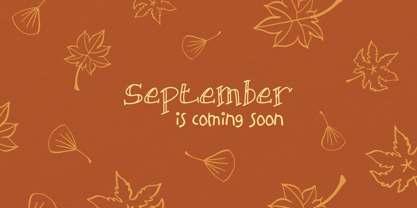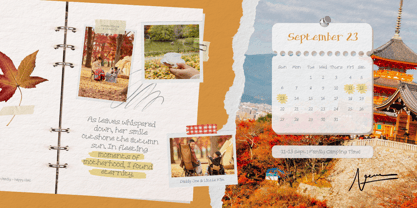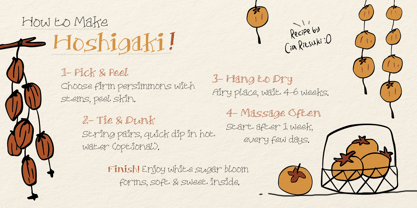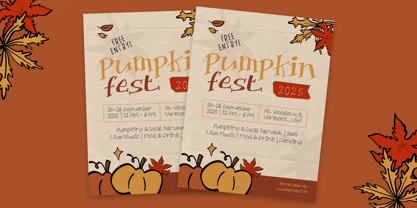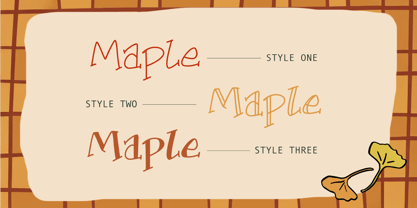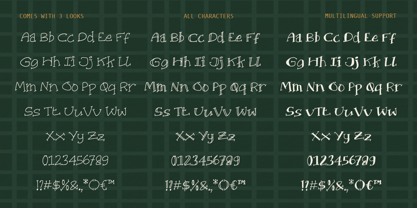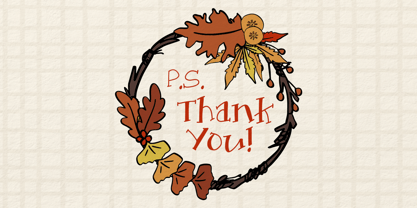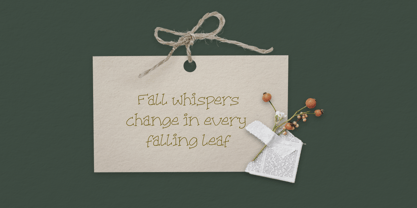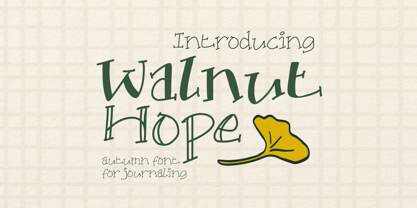
Walnut Hope
The Walnut Hope Font Family was designed by Amelia Dian Isnaini and published by Sloulyfe Studio. Walnut Hope contains 3 styles and family package options. More about this family
Walnut Hope is a charming handwritten font that embodies the serene beauty of autumn journaling. With its playful yet gentle strokes, it evokes the warmth of notes penned amid falling leaves and golden sunsets. This versatile font is ideal for various applications, including digital diaries, planners, scrapbooks, quotes, invitations, and seasonal projects.
Walnut Hope is available in 3 styles, allowing you to elevate your creations and showcase your unique signature style. Key features include uppercase and lowercase letters, numbers and punctuation, alternates and ligatures, multilingual support, and PUA encoding.